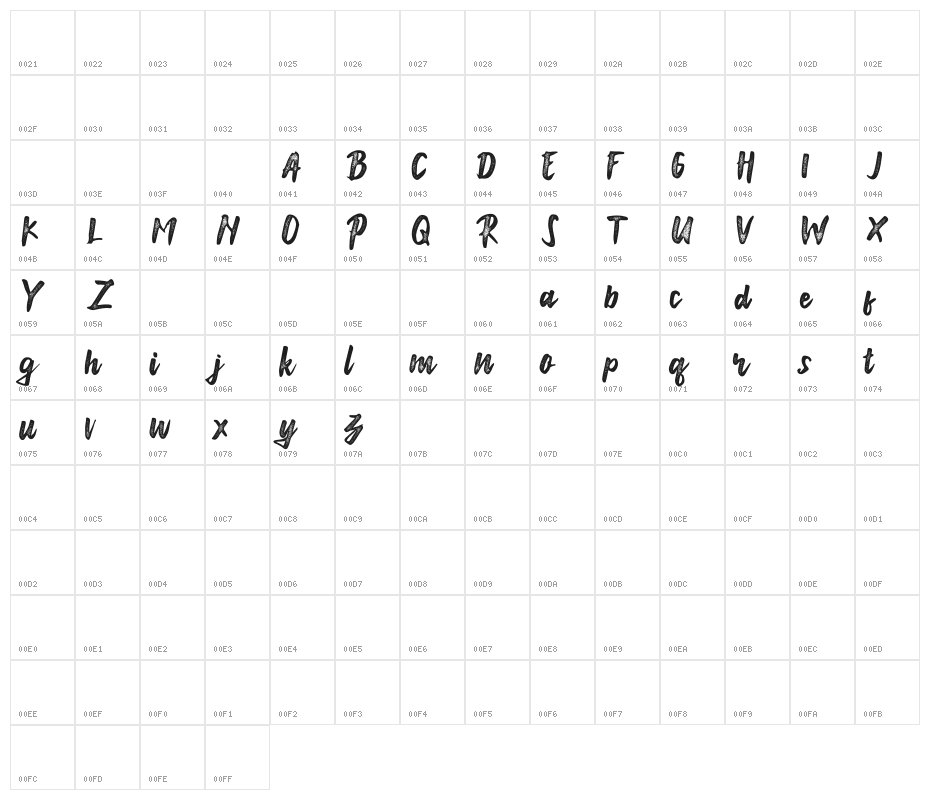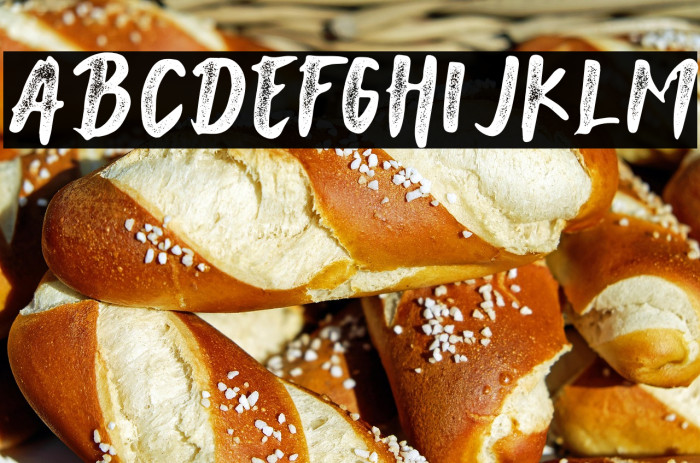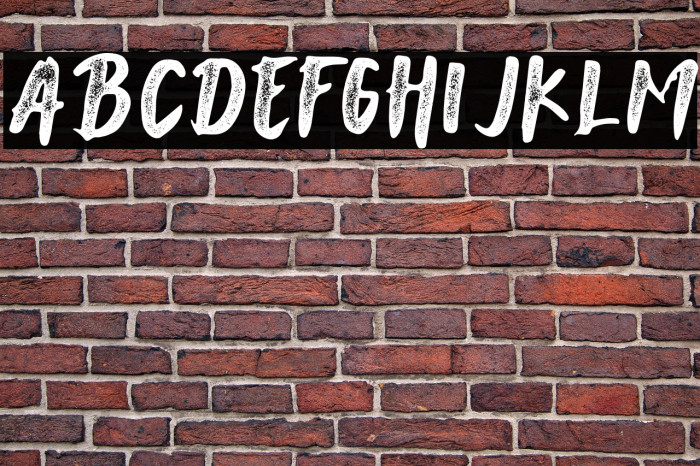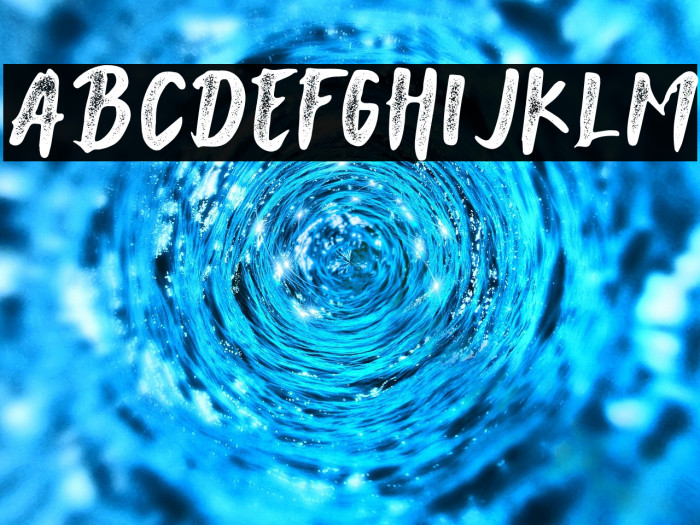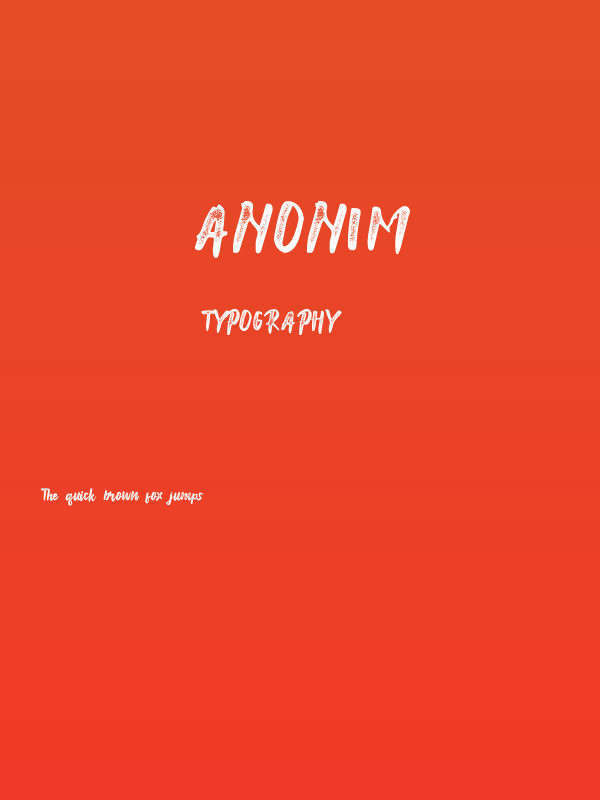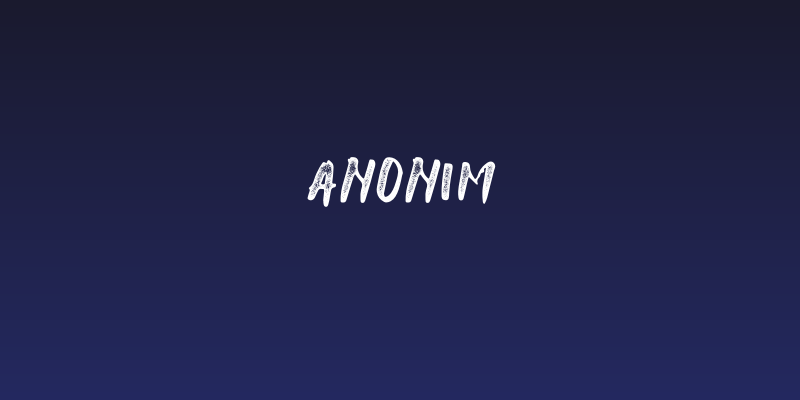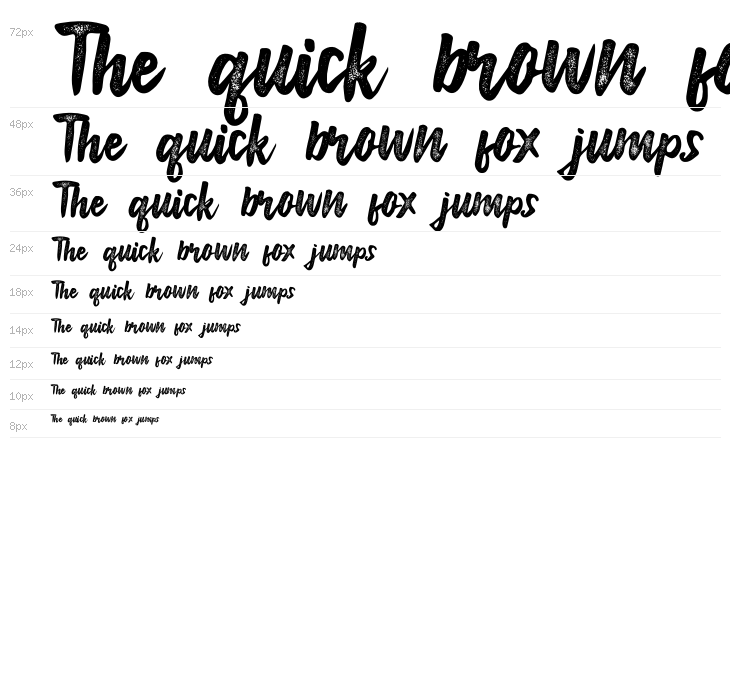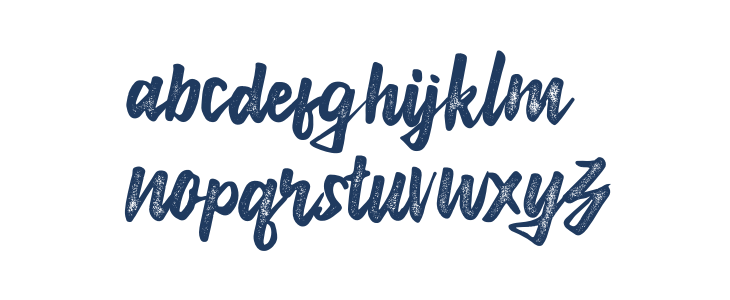
Anonim Font
Anonim Description
This font features a bold, textured script style that exudes a sense of energy and dynamism. The letters are crafted with a brush-like appearance, giving them a hand-painted feel. The texture within each character adds a rustic and artistic touch, making it stand out in any design. The uppercase letters maintain a consistent height, while the lowercase letters have a playful, flowing nature. The strokes are thick and expressive, with a slight slant that enhances the casual, yet sophisticated look. This font is perfect for projects that require a personal and artistic flair.